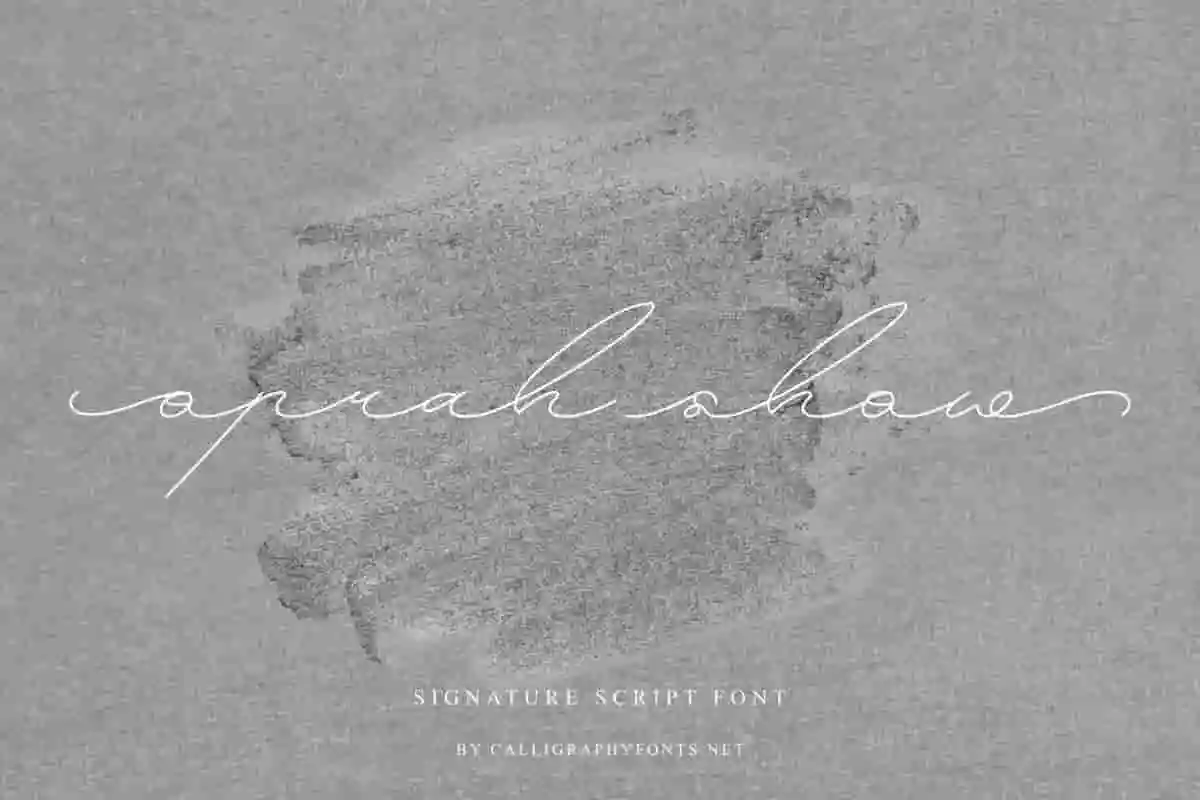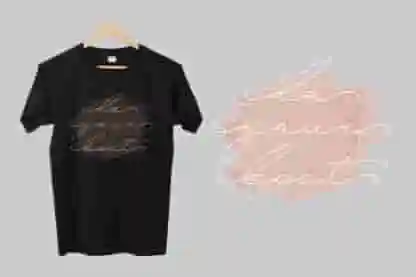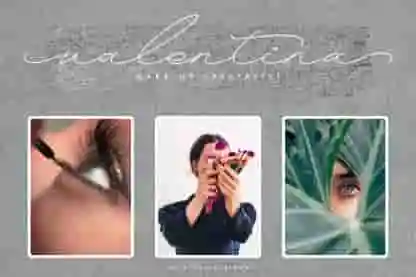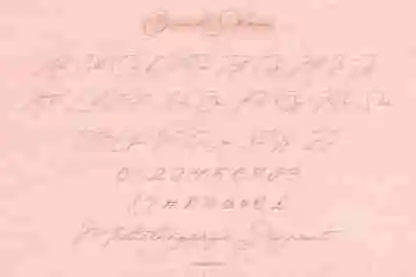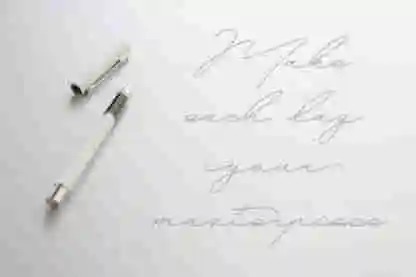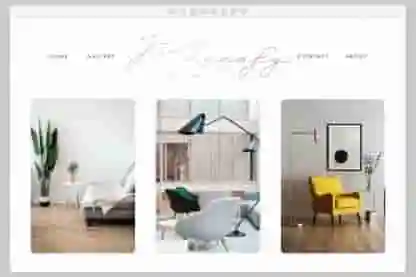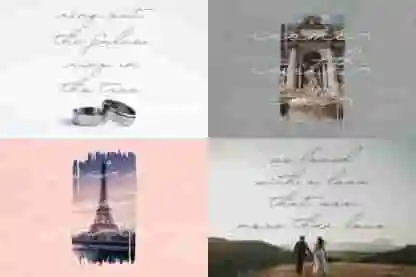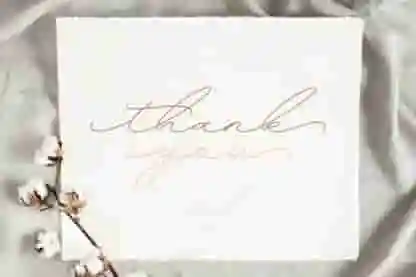
Oprah Show Font
Oprah Show Font is a handwriting signature script Font with a unique exclusive signature style designed by CalligraphyFonts.net for many designs project.
Oprah Show Font is a signature handwriting script Font with elegant style. The theme of this font are casual, modern, elegant, luxury, handwritten, classic and simple lettering.